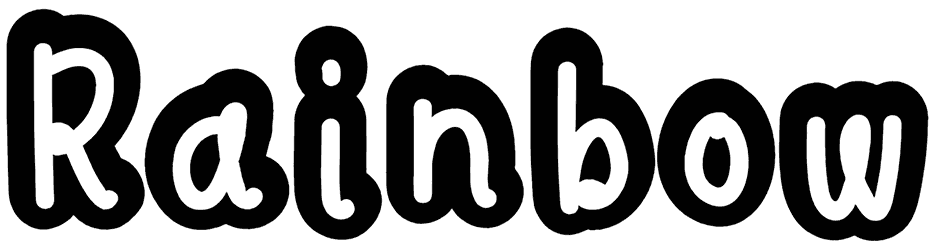
Rainbow Font
Let’s display a creative, comical design with a sweet vibe via performing this outline font, which is named Rainbow. With a manuscript that looks in a natural, playful mood, it will be a superb pickup for a lot of funny expressions, for instance, social media posts, school designs, toy packaging, and many others the same.